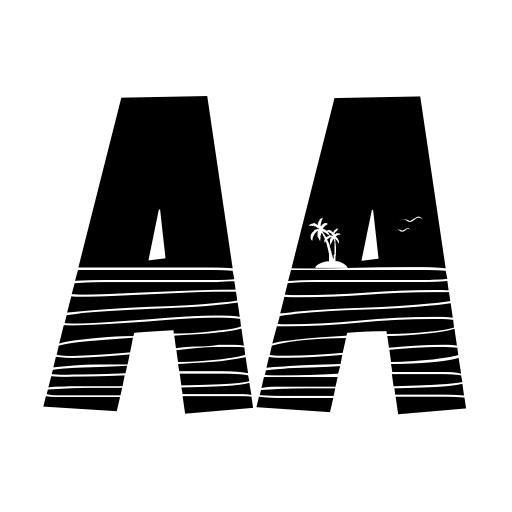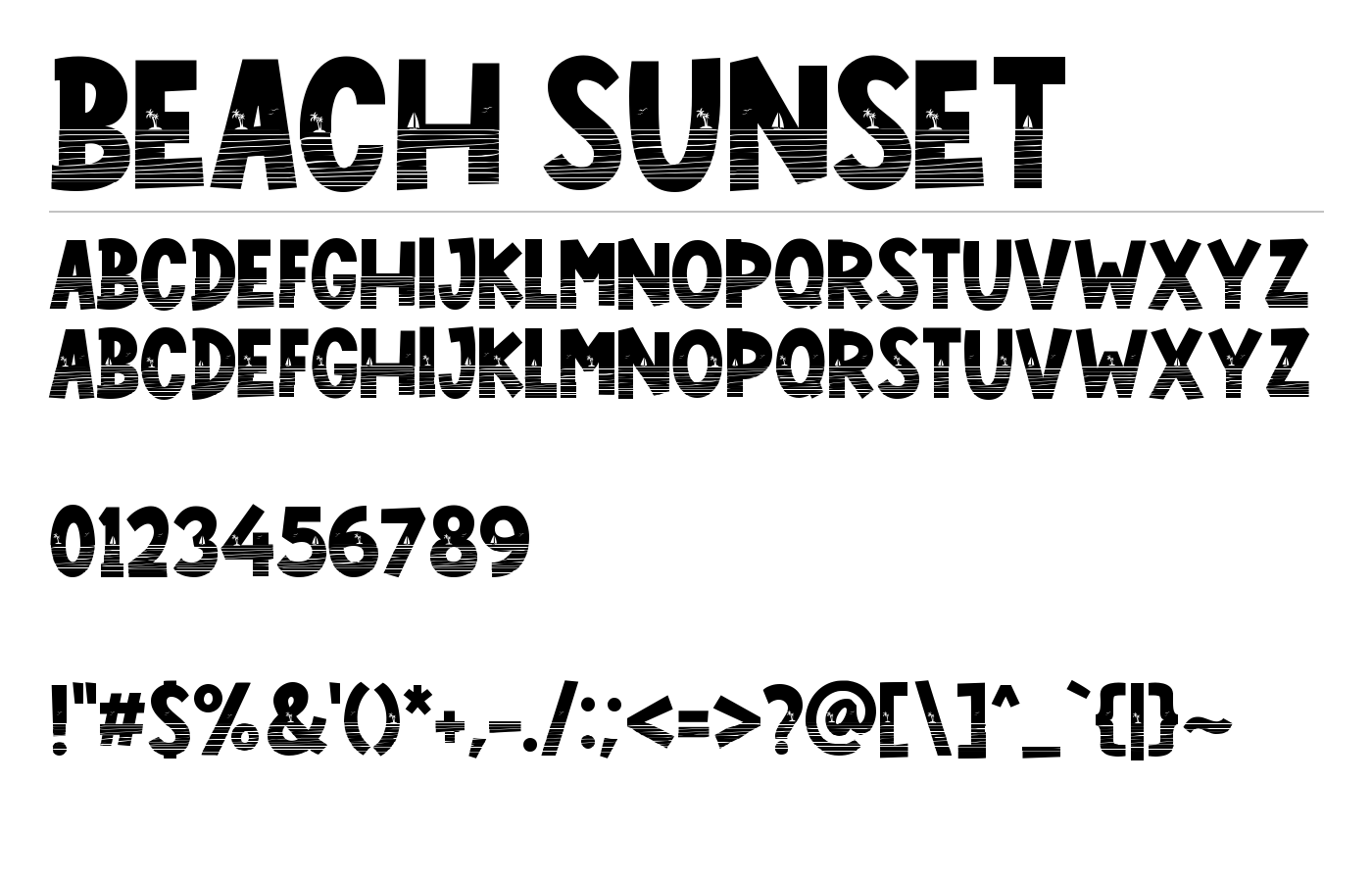
Beach Sunset is a bold, playful display font that captures a lively beach vibe with its strong, uppercase sans serif letterforms and layered, wave-like horizontal lines. Its solid structure combined with decorative tropical elements creates a fun, casual style perfect for summer-themed branding, posters, or logos that want to evoke warmth, relaxation, and ocean breeze energy. This font works best for eye-catching headlines and graphic projects where a bold, fun, and distinctive feel is needed.
Beach Sunset Font
About Beach Sunset Font